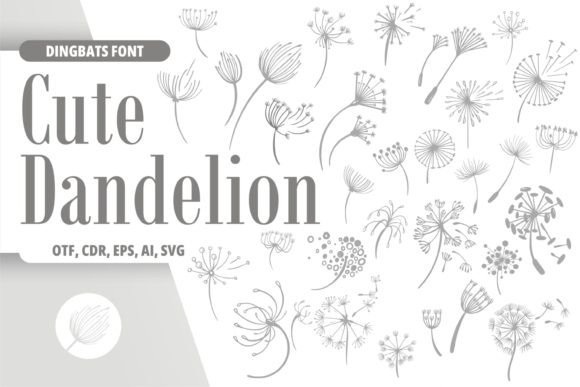
Cute Dandelion Font: Add a Touch of Whimsy to Your Creative Projects
The Cute Dandelion font is a delightful dingbat font that features adorable dandelion-themed glyphs. Each character is meticulously crafted with intricate details, perfect for adding charm to invitations, cards, and crafts. With its playful design, Cute Dandelion adds a touch of whimsy and sweetness to any creative project or decorative element.
What is Cute Dandelion Font?
Cute Dandelion is a unique and charming font that is perfect for adding a touch of personality to your creative projects. The font features a range of dandelion-themed glyphs, including flowers, leaves, and other decorative elements. Each character is carefully crafted to ensure that it is both visually appealing and easy to read.
Features of Cute Dandelion Font
The Cute Dandelion font has a range of features that make it perfect for creative projects. Some of the key features include:
- Adorable dandelion-themed glyphs: The font features a range of dandelion-themed glyphs, including flowers, leaves, and other decorative elements.
- Meticulously crafted with intricate details: Each character is carefully crafted to ensure that it is both visually appealing and easy to read.
- Playful design: The font has a playful design that adds a touch of whimsy and sweetness to any creative project or decorative element.
- Perfect for invitations, cards, and crafts: The font is perfect for adding charm to invitations, cards, and crafts.
Uses of Cute Dandelion Font
The Cute Dandelion font is perfect for a range of creative projects, including:
- Invitations: The font is perfect for adding a touch of whimsy and charm to invitations for parties, weddings, and other special events.
- Cards: The font is perfect for creating greeting cards for birthdays, holidays, and other special occasions.
- Crafts: The font is perfect for adding a touch of personality to craft projects, such as scrapbooking, journaling, and paper crafting.
- Decorative elements: The font can be used to create decorative elements, such as banners, signs, and other visual elements.
Benefits of Using Cute Dandelion Font
The Cute Dandelion font offers a range of benefits, including:
- Unique and charming design: The font has a unique and charming design that adds a touch of personality to any creative project.
- Versatile: The font is versatile and can be used for a range of creative projects, from invitations to crafts.
- High-quality: The font is high-quality and features intricate details that make it perfect for printing and digital use.
Tips for Using Cute Dandelion Font
Here are some tips for using the Cute Dandelion font:
- Use it sparingly: Use the Cute Dandelion font sparingly to add a touch of whimsy and charm to your creative project.
- Pair it with other fonts: Pair the Cute Dandelion font with other fonts to create a unique and visually appealing design.
- Experiment with different sizes: Experiment with different sizes to find the perfect size for your creative project.
- Have fun: Have fun using the Cute Dandelion font to add a touch of personality to your creative project.
The Cute Dandelion font is a delightful dingbat font that features adorable dandelion-themed glyphs. Each character is meticulously crafted with intricate details, perfect for adding charm to invitations, cards, and crafts. With its playful design, Cute Dandelion adds a touch of whimsy and sweetness to any creative project or decorative element. Whether you’re a designer, crafty person, or just someone who loves to create, the Cute Dandelion font is perfect for adding a touch of personality to your creative projects.